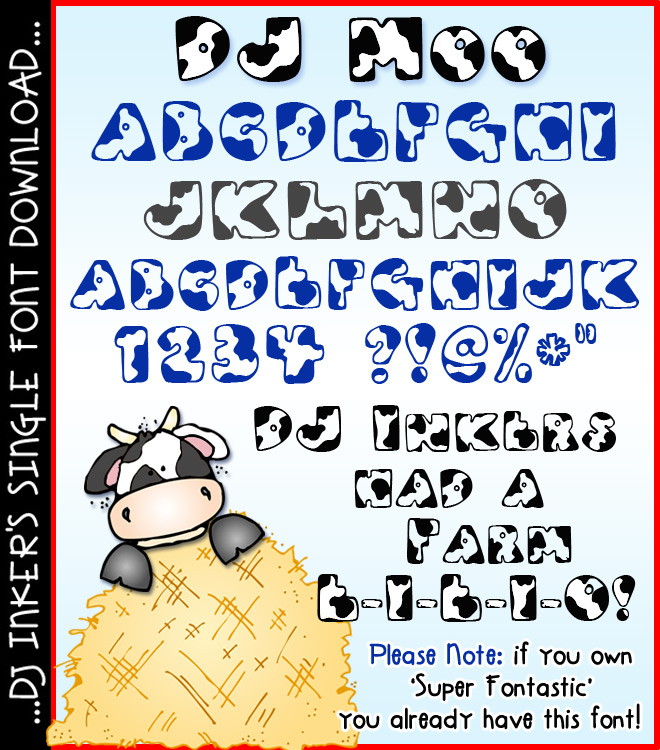
Have you heard the latest 'mooooos?' Our whimsical cow-print font, 'DJ Moo,' is packed with personality. Perfect for farm field trips, 'moos'letters, mooo-vie night, ice cream parties and more.